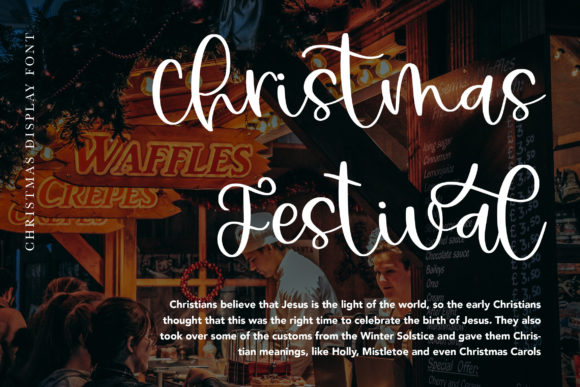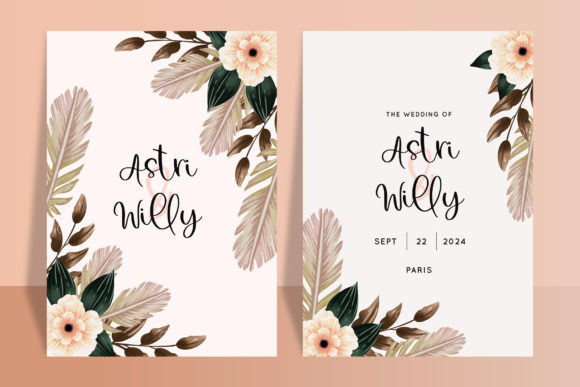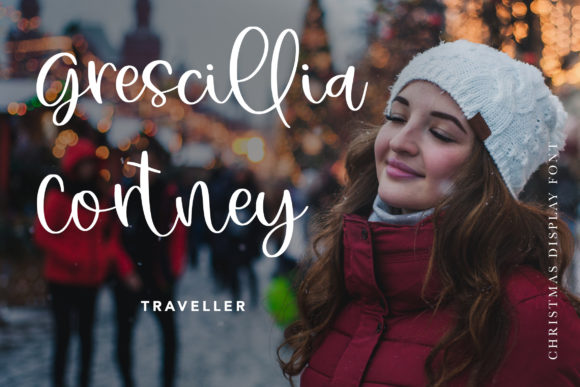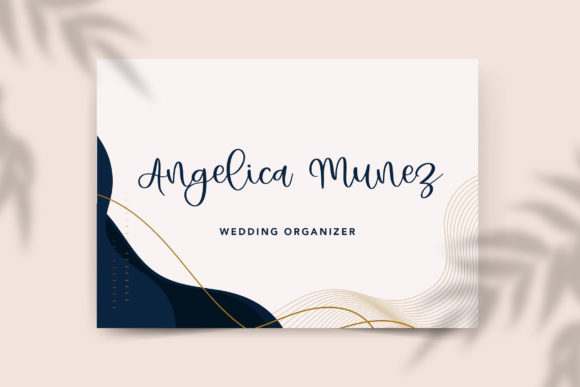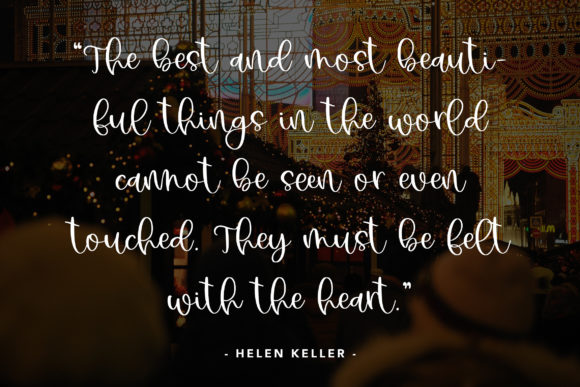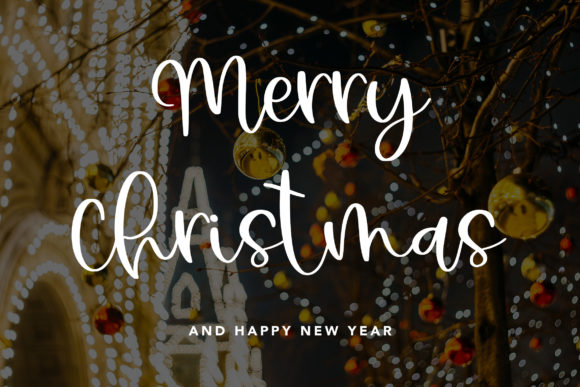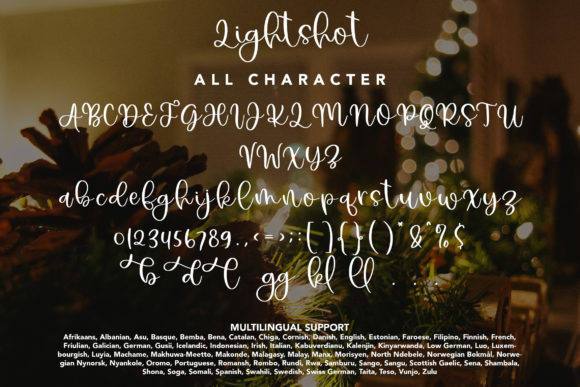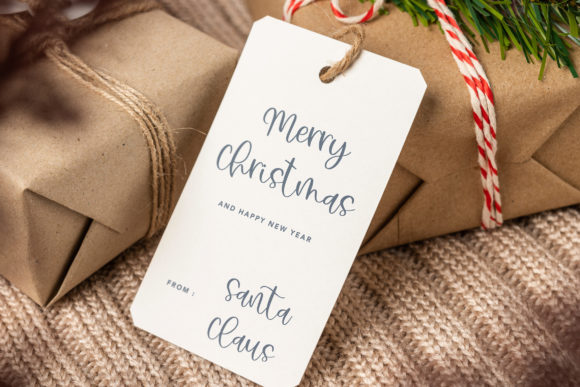
Lightshot Font
About Lightshot Font
Lightshot is a lovely script font featuring charming, playful characters that seem to dance along the baseline. Add this font to your most creative ideas, and notice how it makes them stand out!